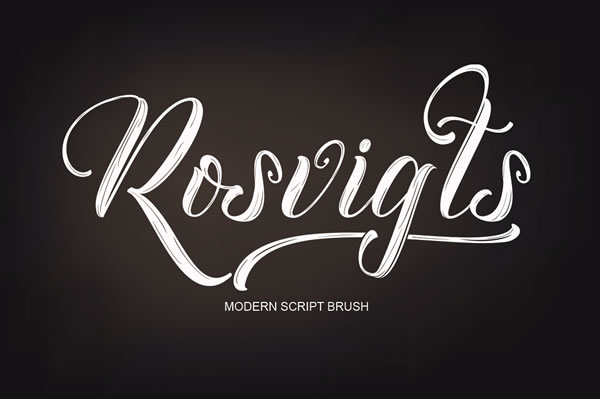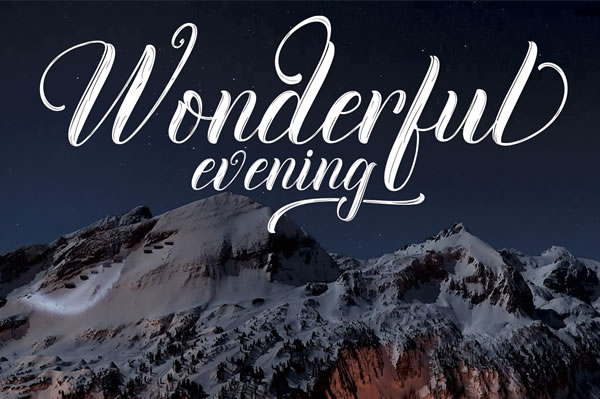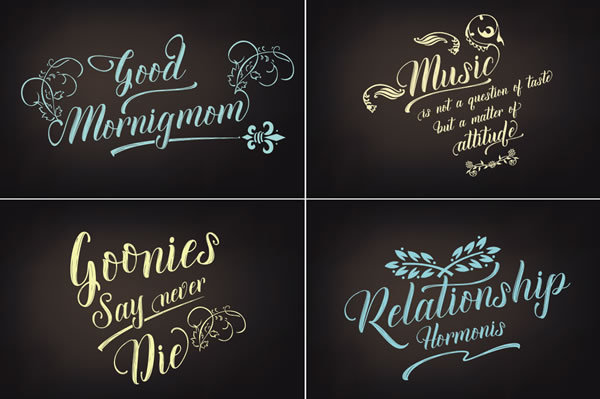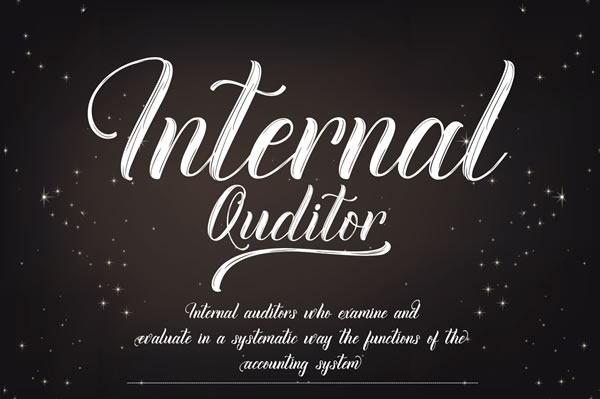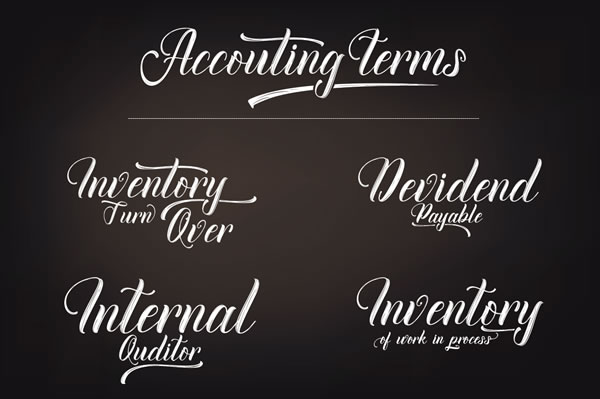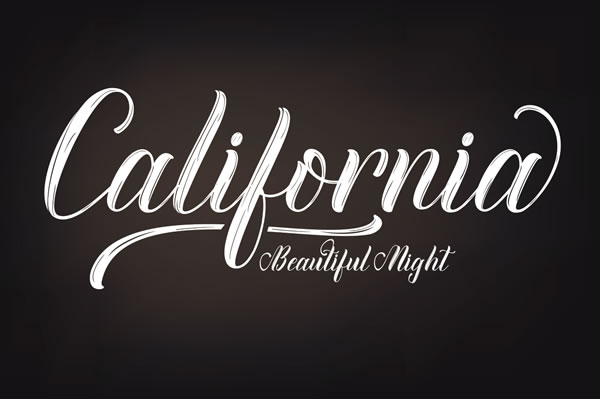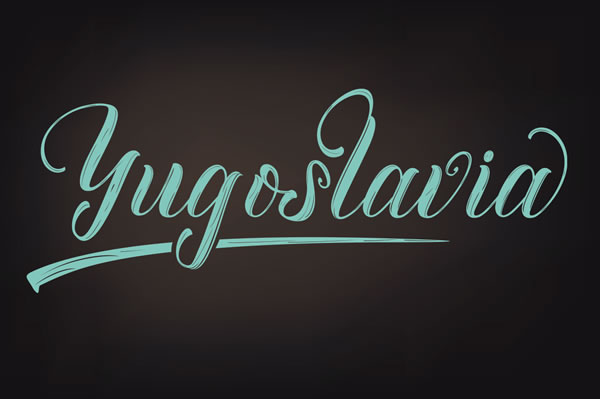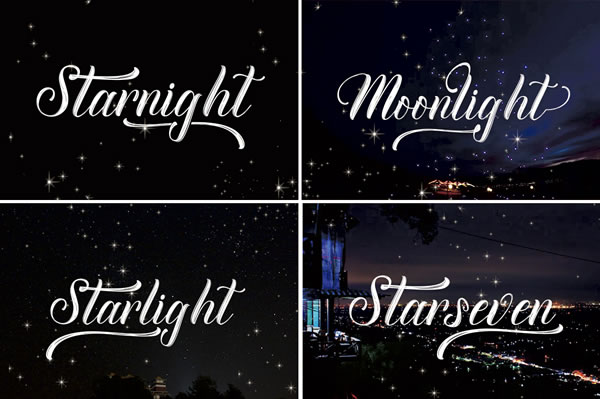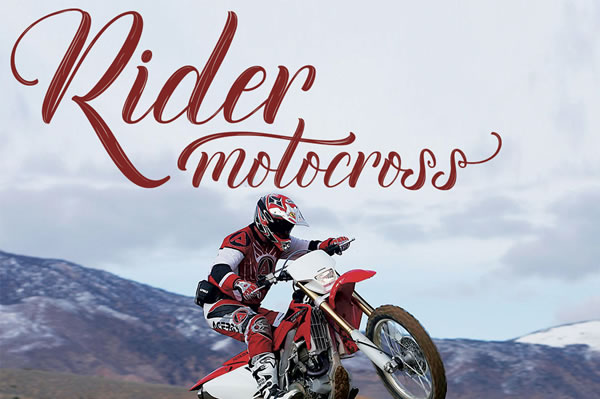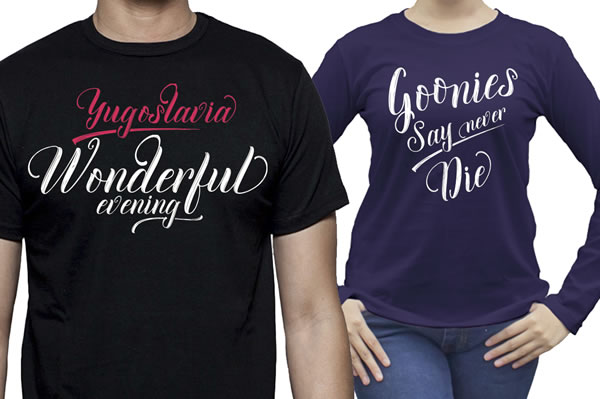
Rosvigts Brush Font
About Rosvigts Brush Font
Rosvigts Script is a handmade brush script font created by Moriztype.
It has been created with a soft bristle brush and is digitally optimized to create a modern, classic clean look.